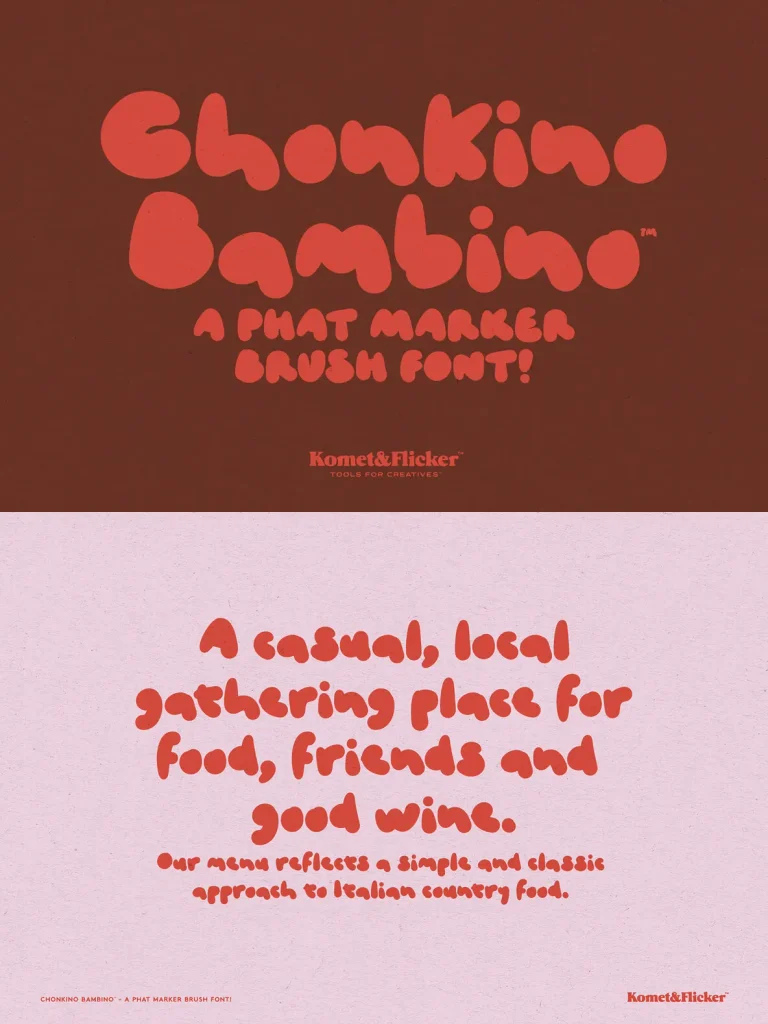
Chonkino Bambino — Doodle-Led Charm
Chonkino Bambino is a hand-drawn marker brush font bursting with friendly personality. Its fun, soft, and blobby letterforms bring a casual, playful energy to every word, with the feeling of a favorite doodle coming to life on the page.
This expressive display font suits children’s books, packaging, branding, and any design that needs extra charm and character. Use Chonkino Bambino when a project calls for approachable lettering, rounded forms, and a warm handmade tone.